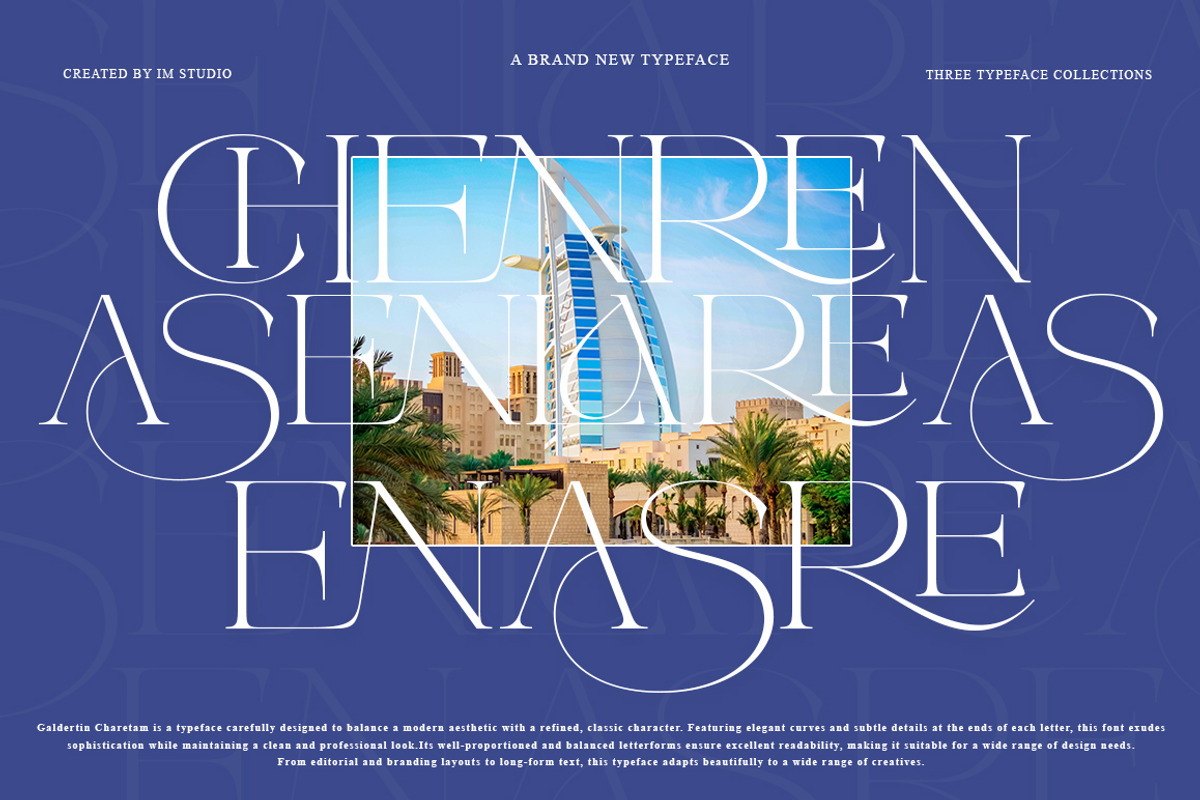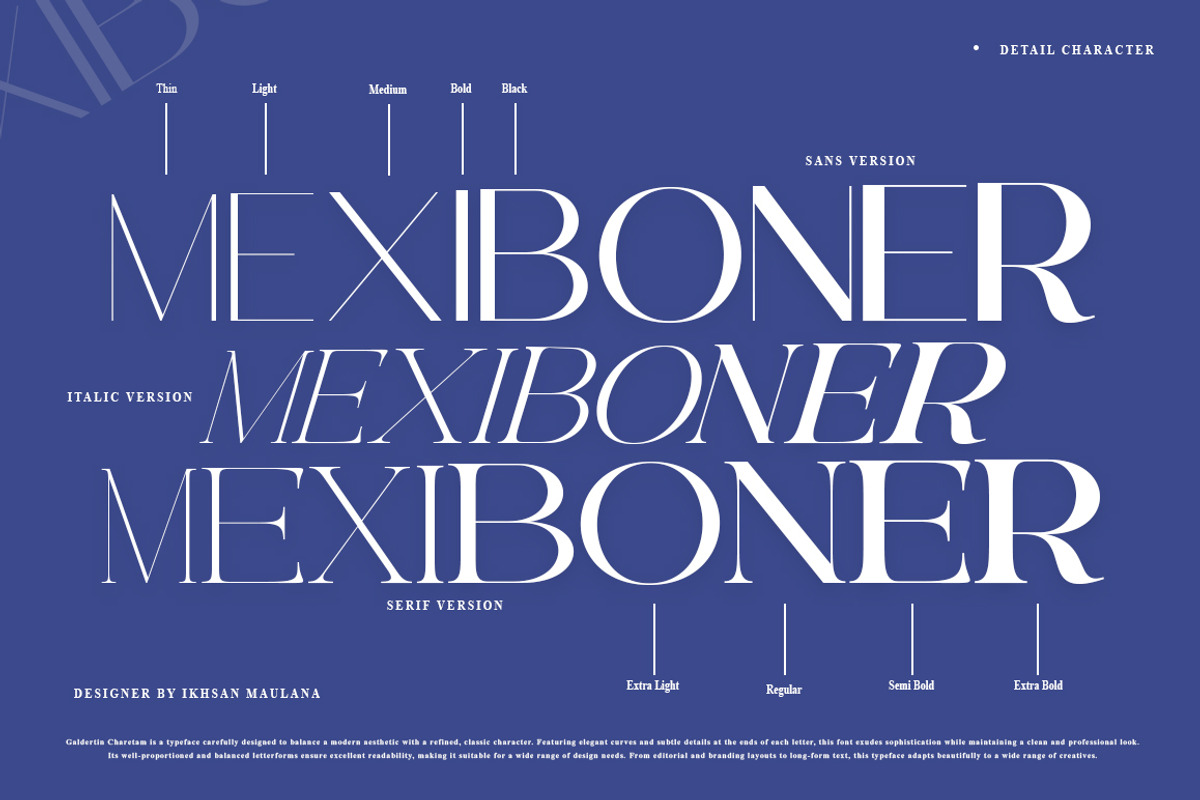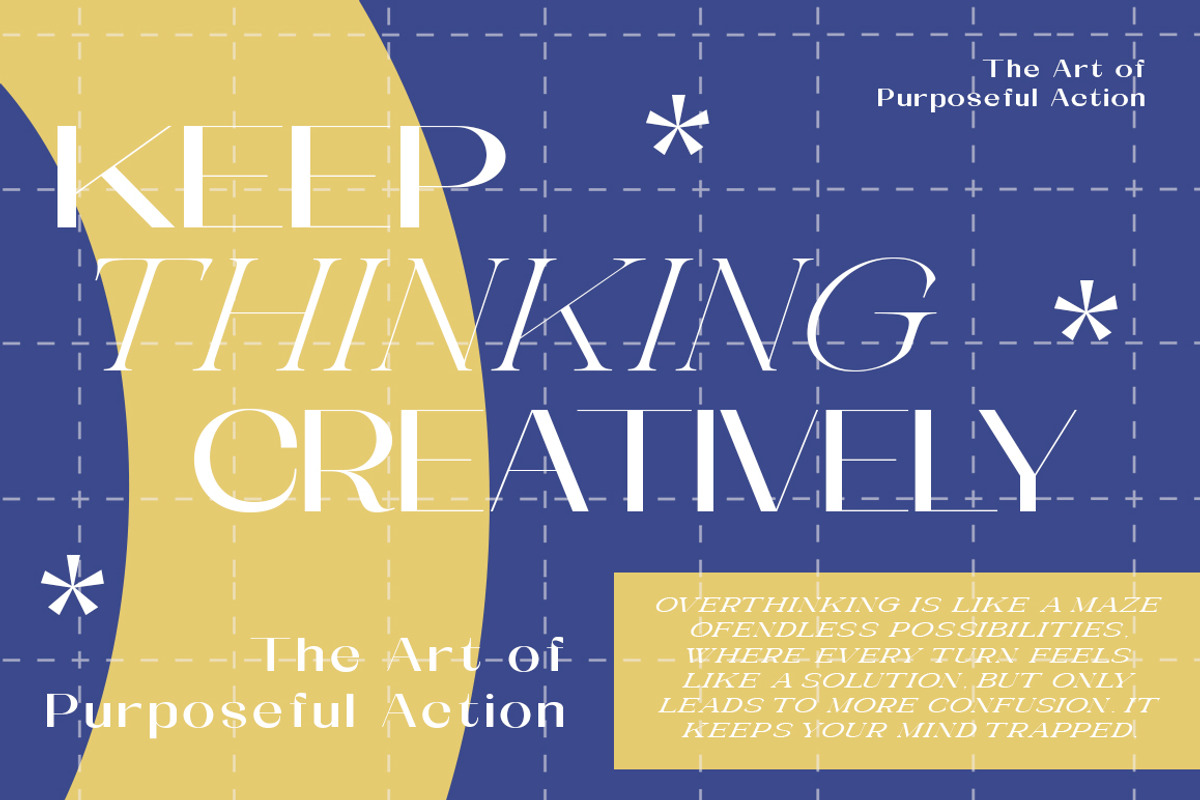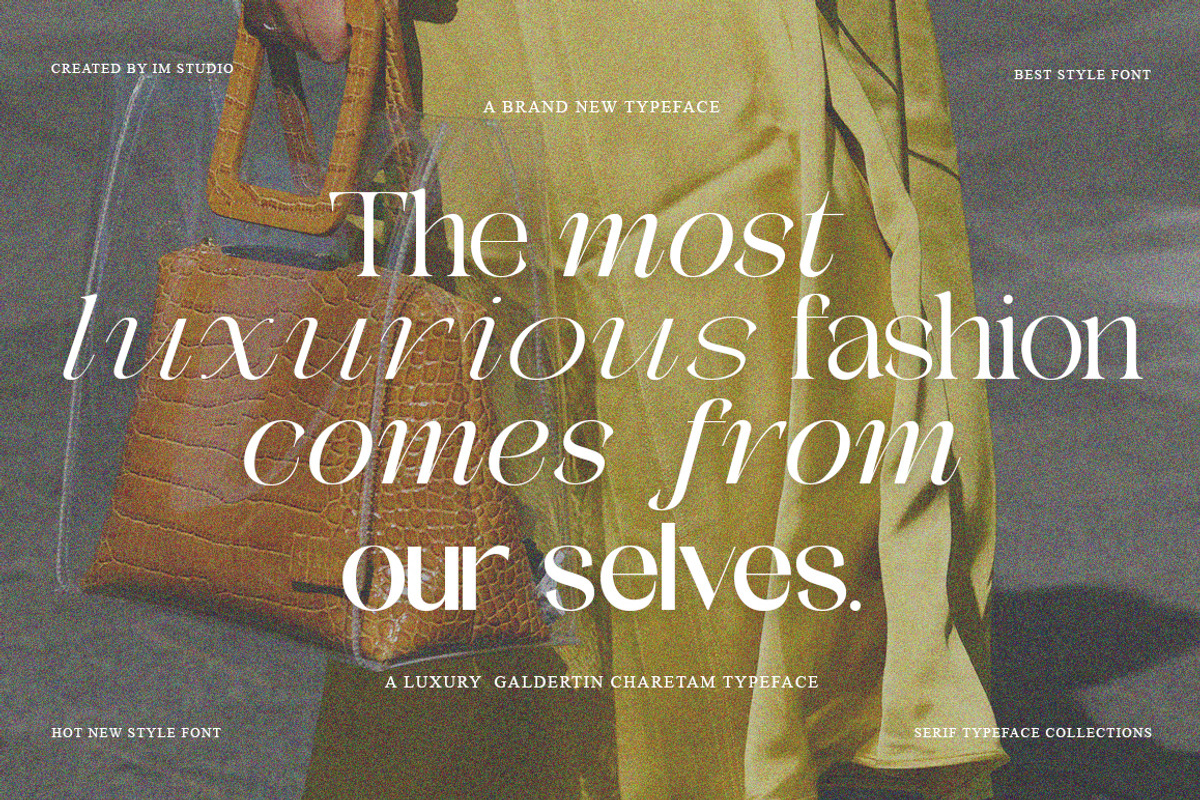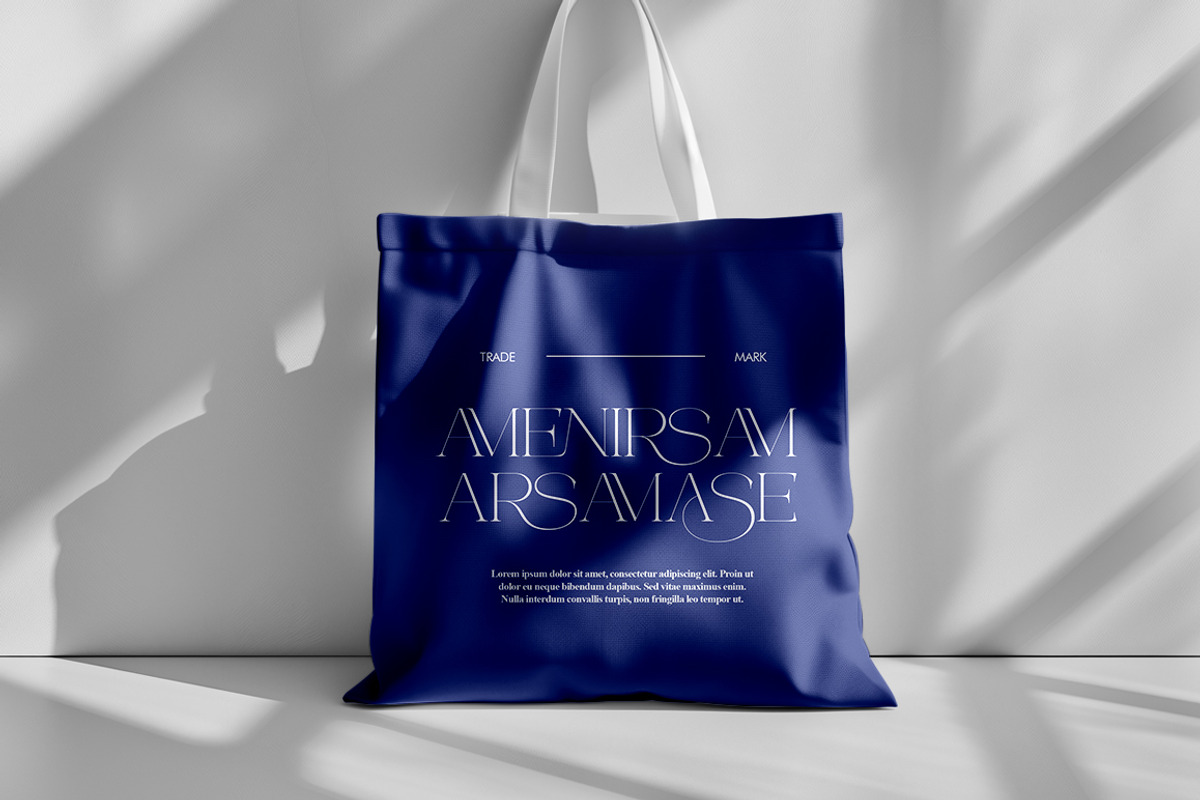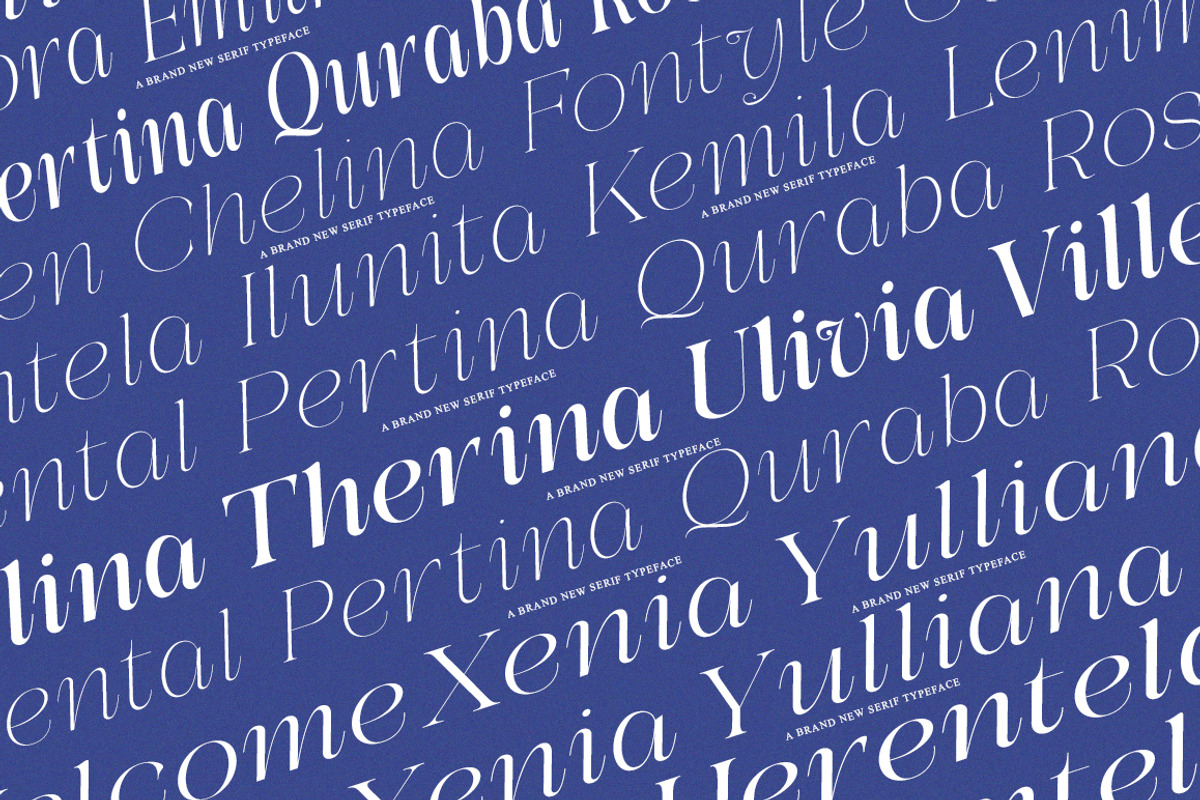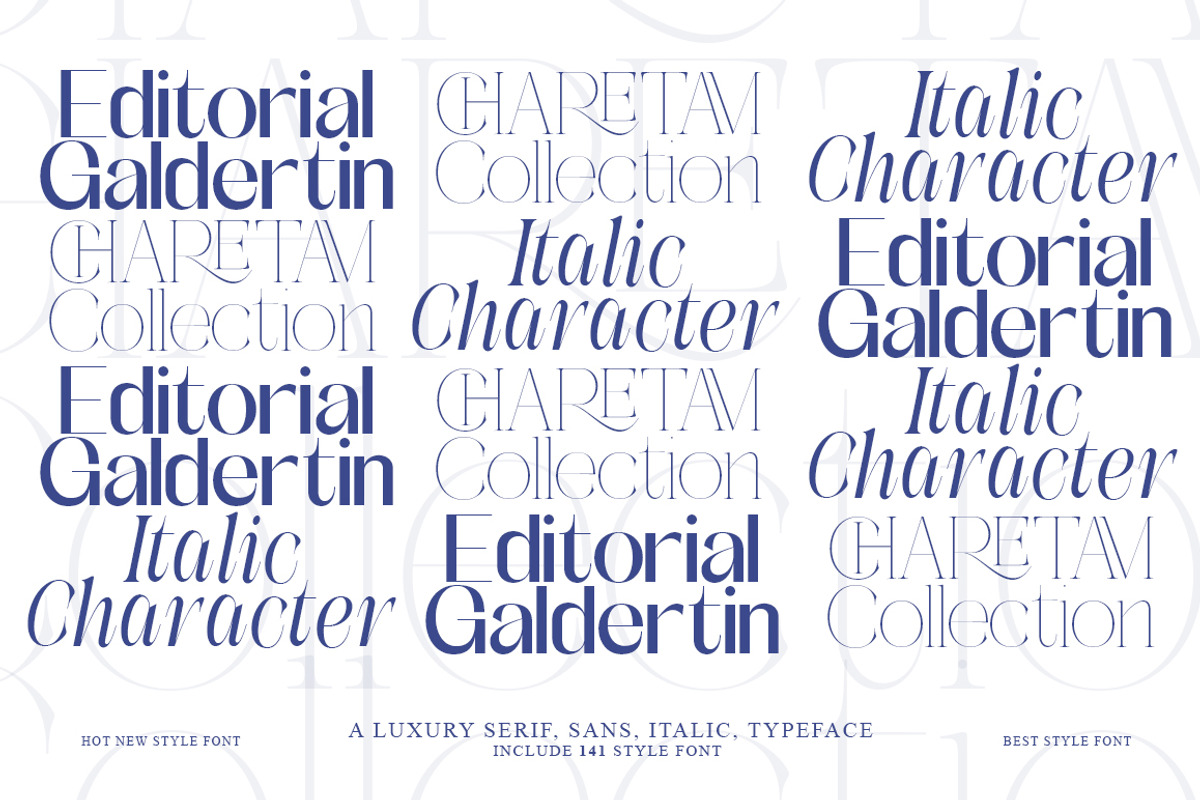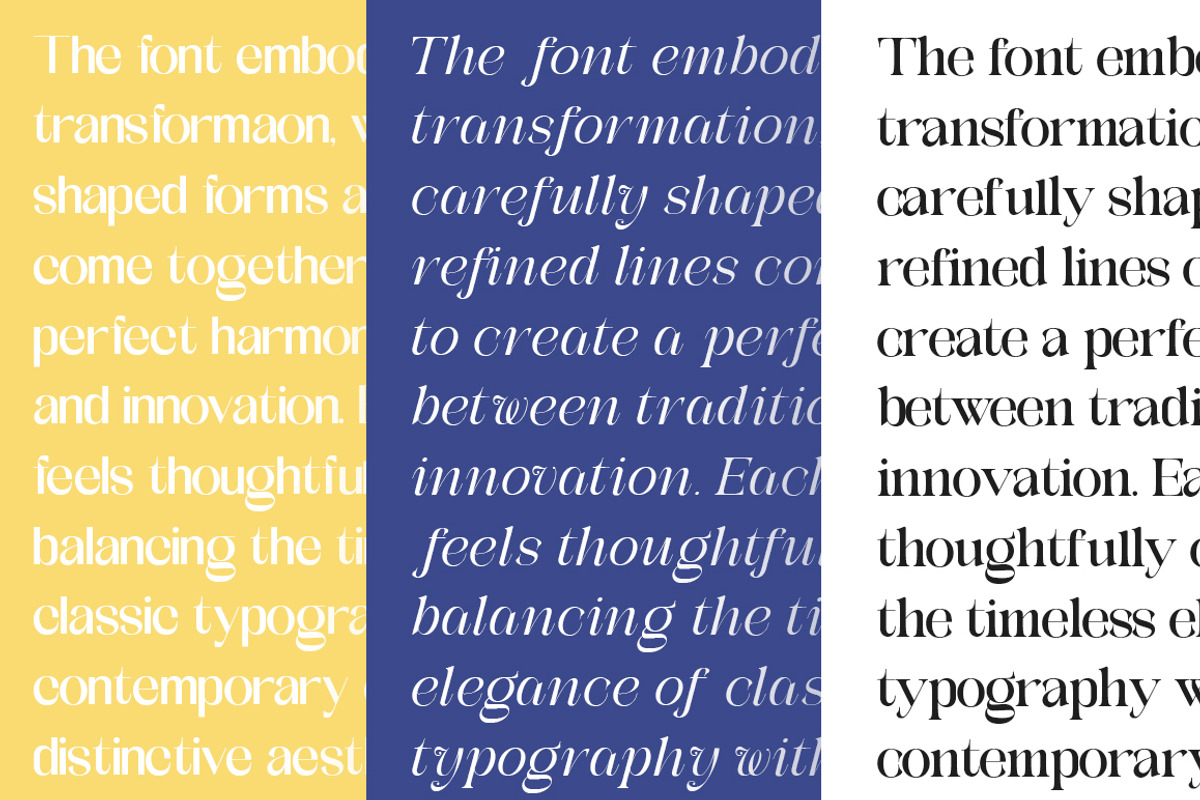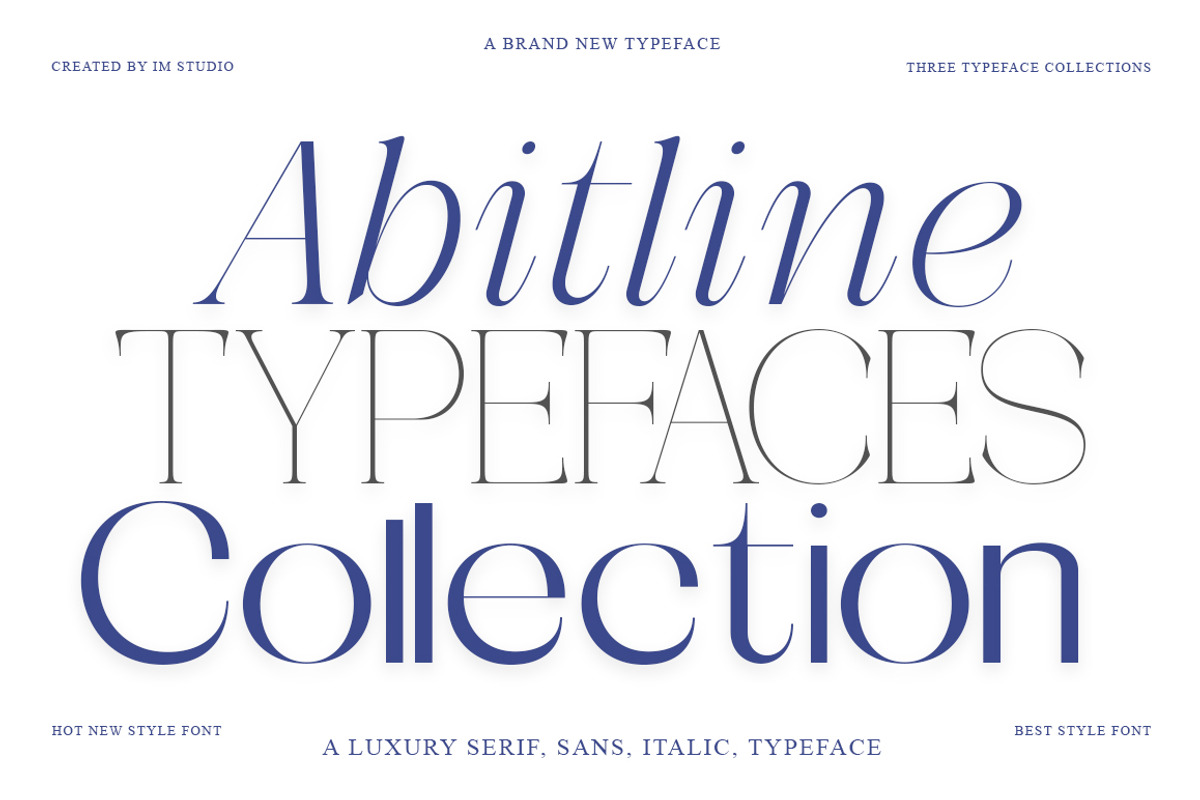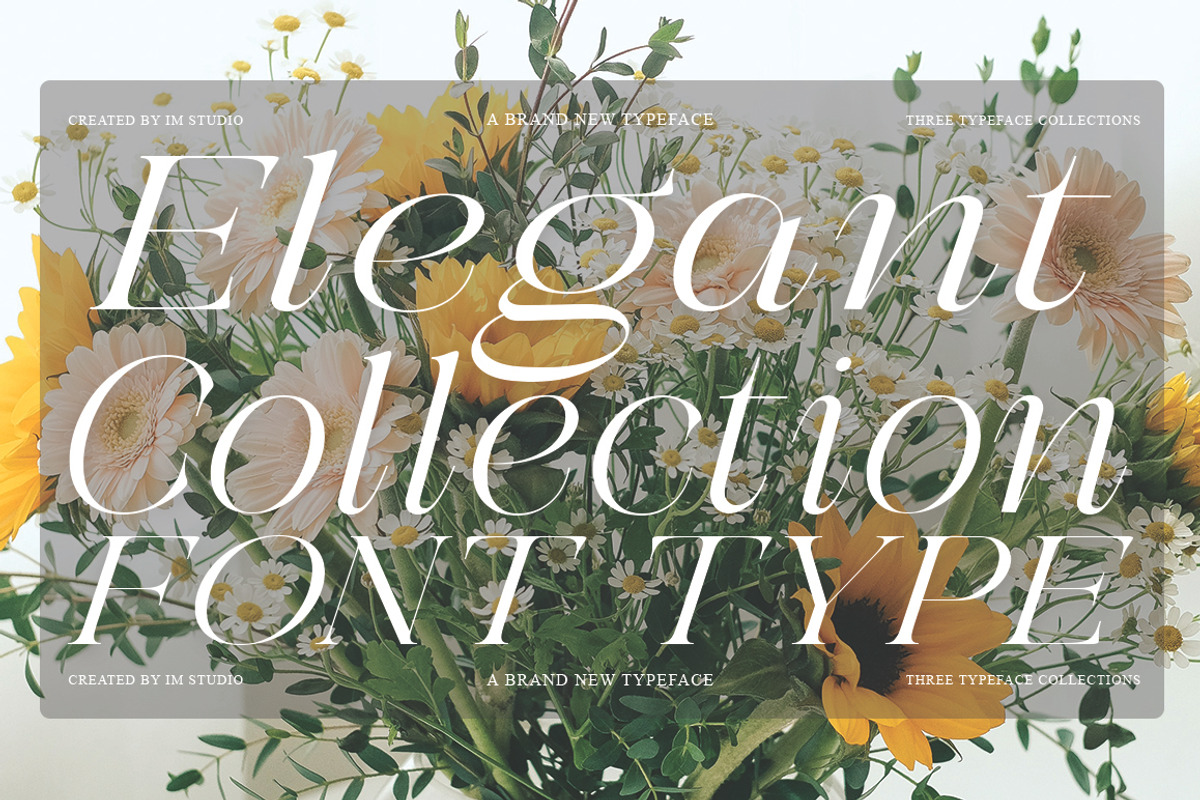
Galdertin Charetam | 141 Font Style
Galdertin Charetam | 141 Font Styles!
A typeface for timeless elegance and modern expression featuring a luxurious blend of serif, italic, and sans serif.
Discover Galdertin Charetam, a sophisticated serif typeface that beautifully bridges classic refinement and modern design sensibilities. Crafted with meticulous precision, Galdertin Charetam brings together high-contrast strokes, graceful curves, and elegant proportions—creating a visual harmony that feels both luxurious and contemporary.
Perfect for editorial layouts, high-end branding, and digital experiences, Galdertin Charetam adds a touch of timeless class to any project. Each character is meticulously designed to balance strength and beauty, while its true italic typefaces provide fluidity and dynamic rhythm for a more expressive typographic experience.
✦ Key Features:
Effortless Elegance: Clean lines, refined shapes, and perfect balance for a timeless aesthetic.
The Magic of OpenType: Advanced typography features, ligatures, and stylistic alternatives for complete creative control.
Multilingual Support: Covers over 90 languages for global flexibility.
True Italics: Designed from the ground up to complement upright letter weights, enhancing visual flow and contrast.
✦ Perfect For:
Editorial & Publishing: Magazines, newspapers, and books that require sophistication and legibility.
Brand Identity & Logos: Create distinctive and sophisticated branding with an unforgettable serif touch.
Web & Digital Design: Clean contrast ensures crisp and elegant readability across all devices.
Packaging & Print: Add a touch of luxury to labels, posters, or stationery.
Invitations & Promotional Materials: Perfect for wedding invitations, greeting cards, and formal correspondence.
Full set of numbers & punctuation
Western & Central European language support
141 fonts (Sans, Serif, Italic) developed with styles such as (Extra Compact, Semi Compact, and more)
Enter the world of Galdertin Charetam—where timeless beauty meets modern versatility. Bring your designs to life with elegance, confidence, and impeccable style.